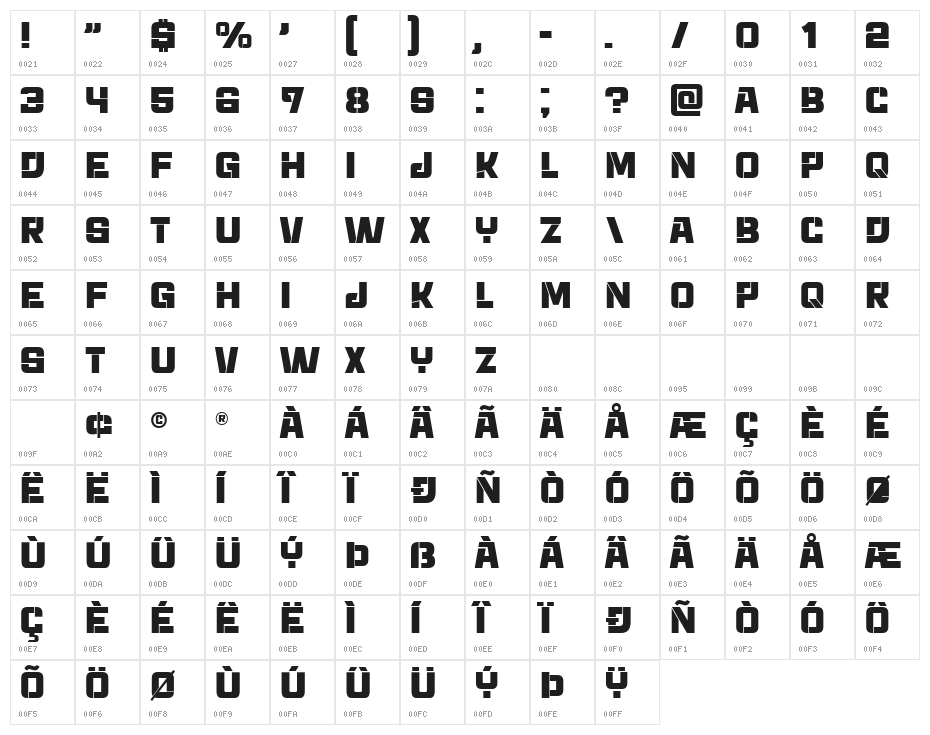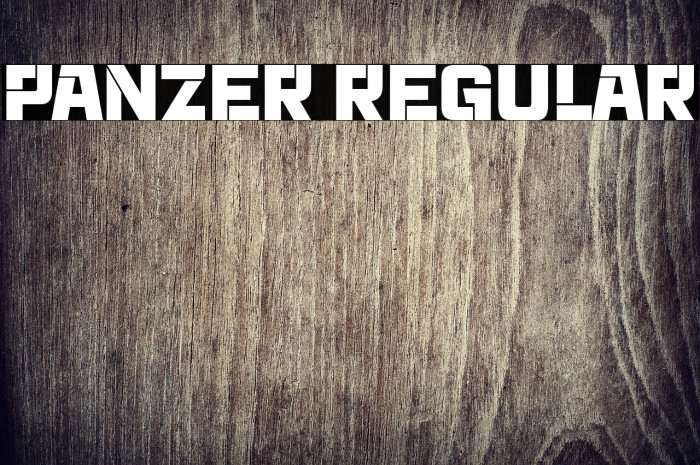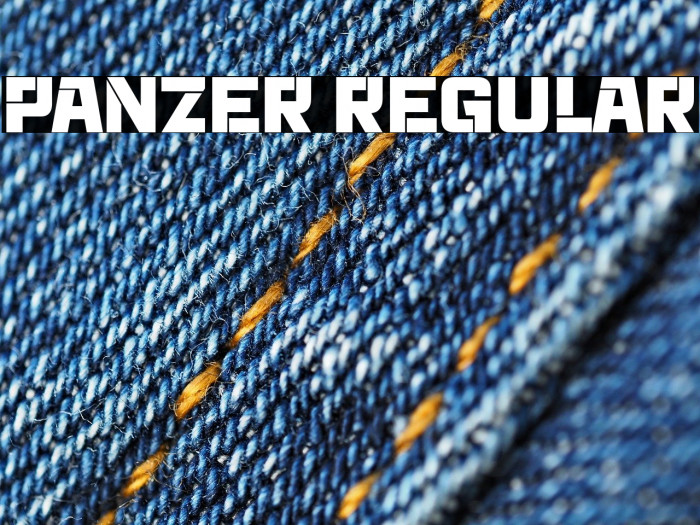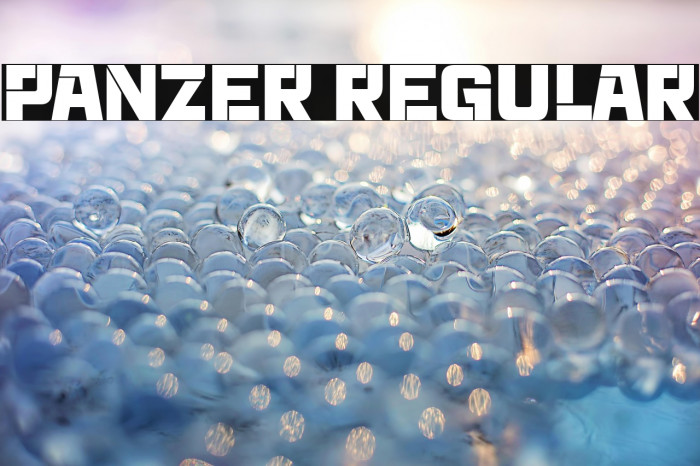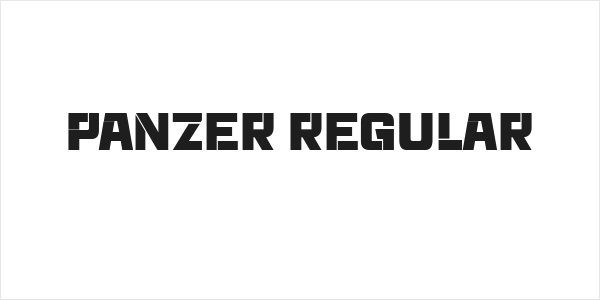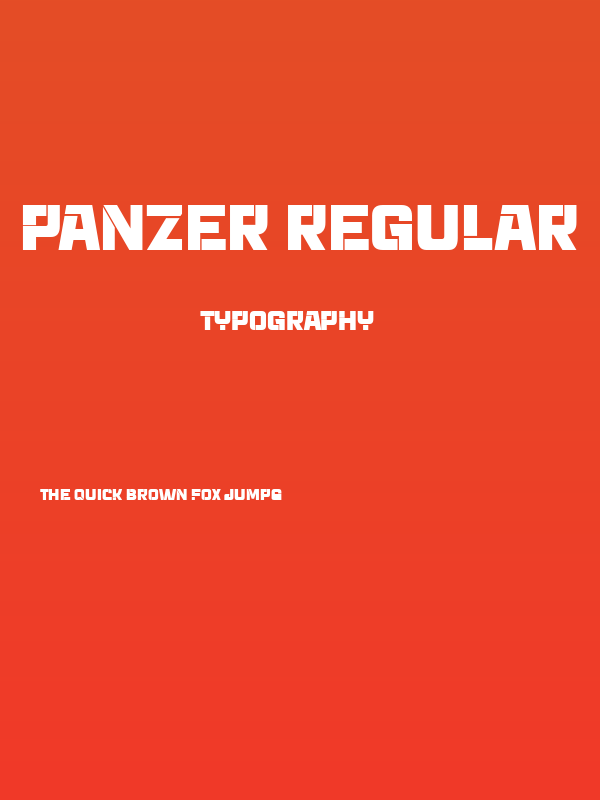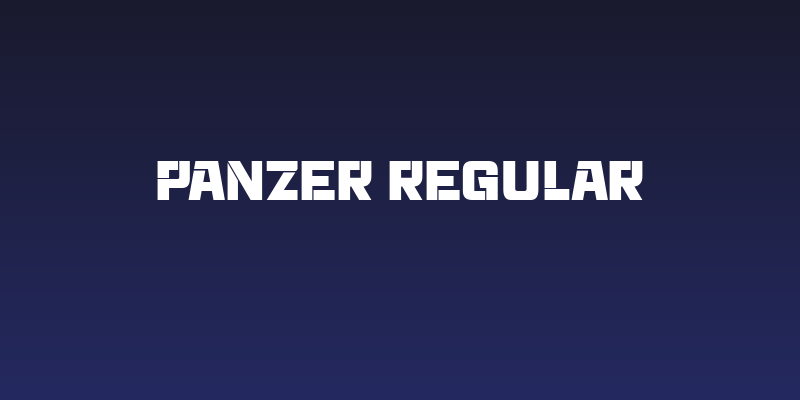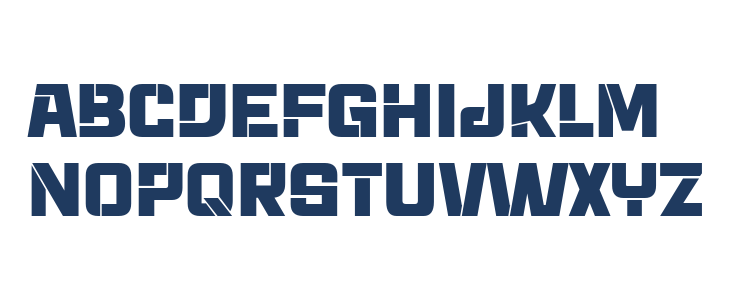
Panzer Regular Font
Panzer Regular Description
This font features a bold, geometric design with strong, angular lines and a modern aesthetic. The characters are constructed with a block-like structure, emphasizing a sense of strength and stability. The uppercase letters are particularly striking, with a uniform height and width that create a cohesive look. The numbers and special characters maintain this bold style, ensuring consistency across all glyphs. The font's design is reminiscent of industrial or military themes, making it ideal for projects that require a powerful and assertive visual presence.
| Proposed Projects | Ideal for branding, posters, headlines, and any design requiring a strong, impactful presence. |